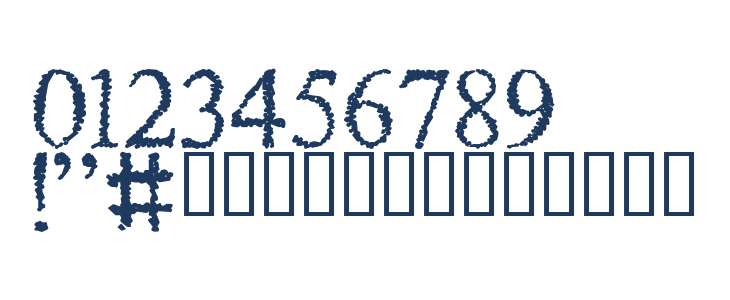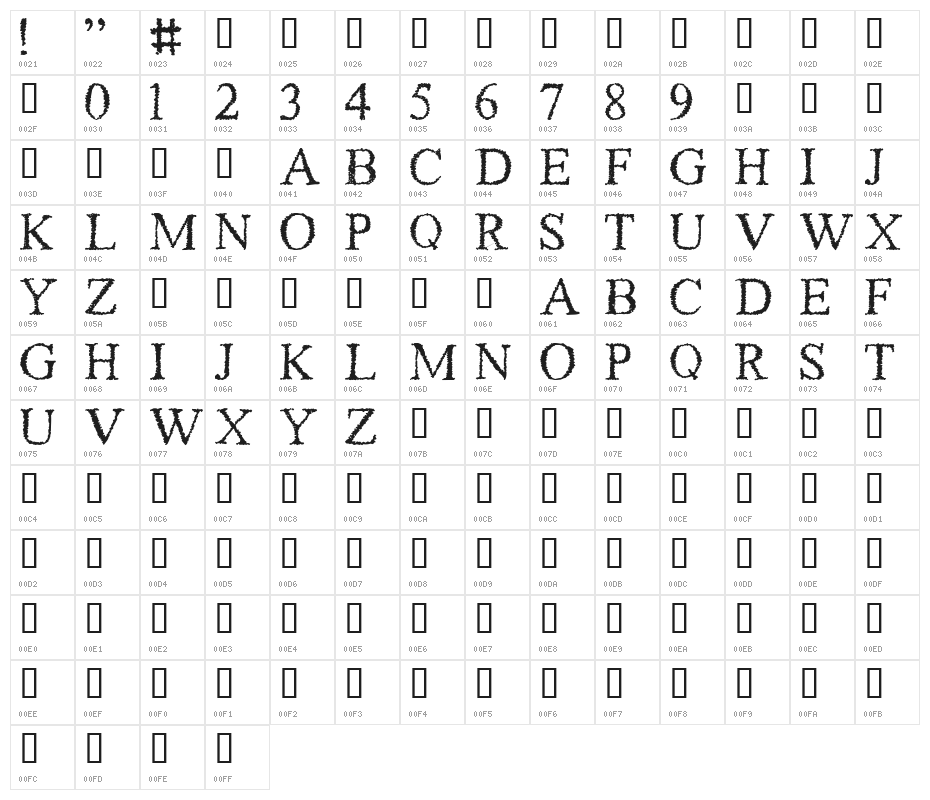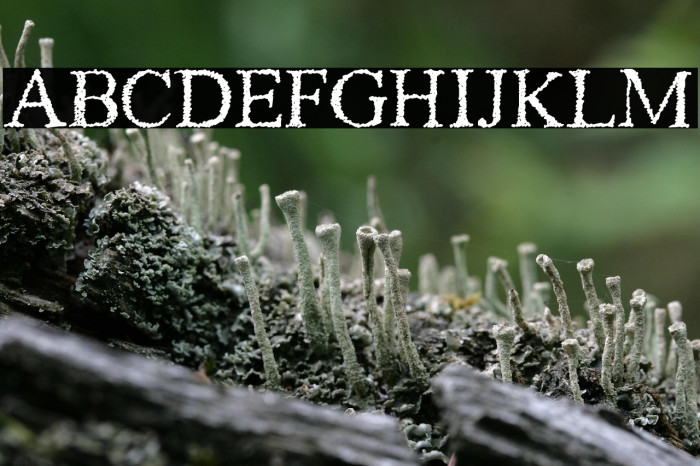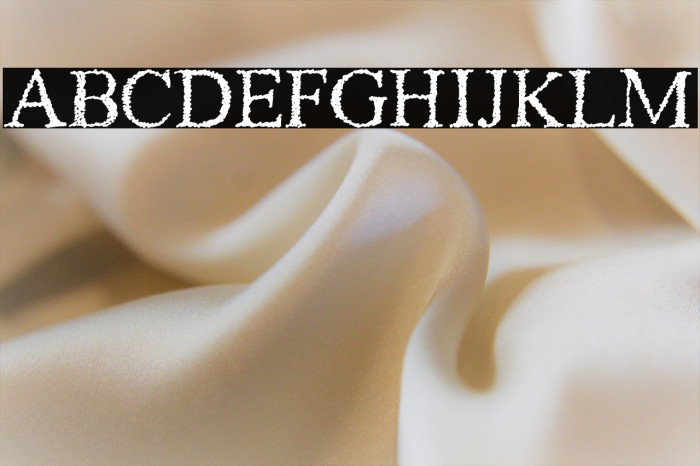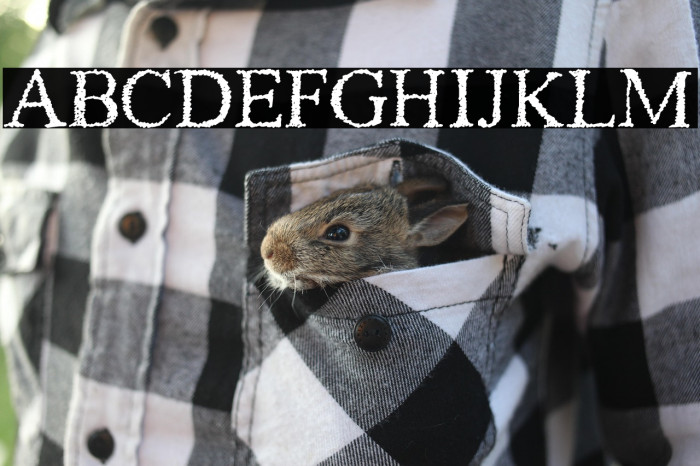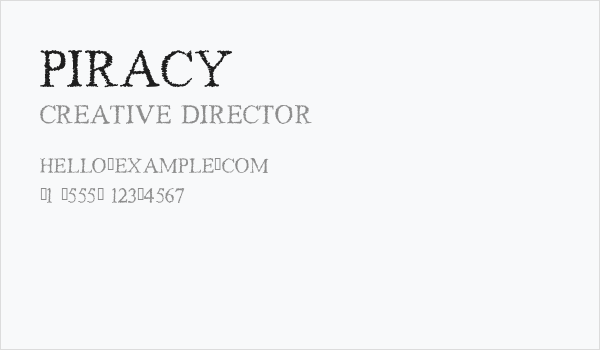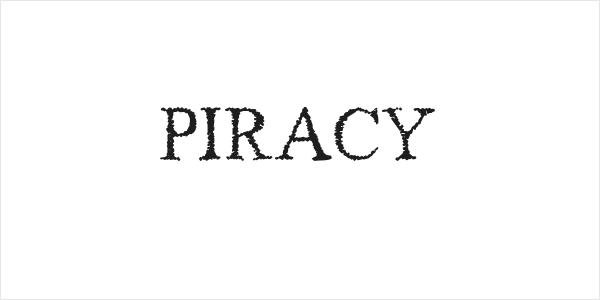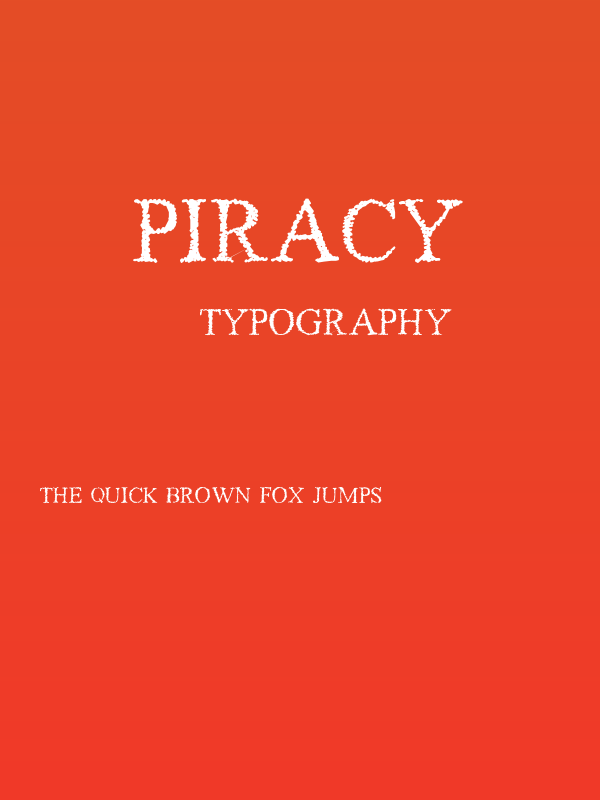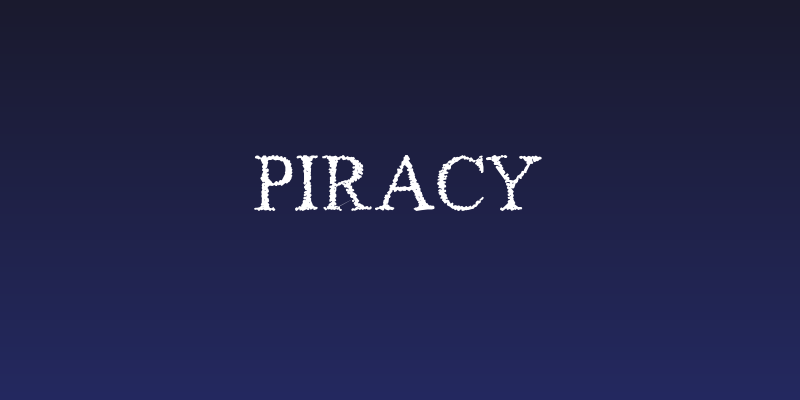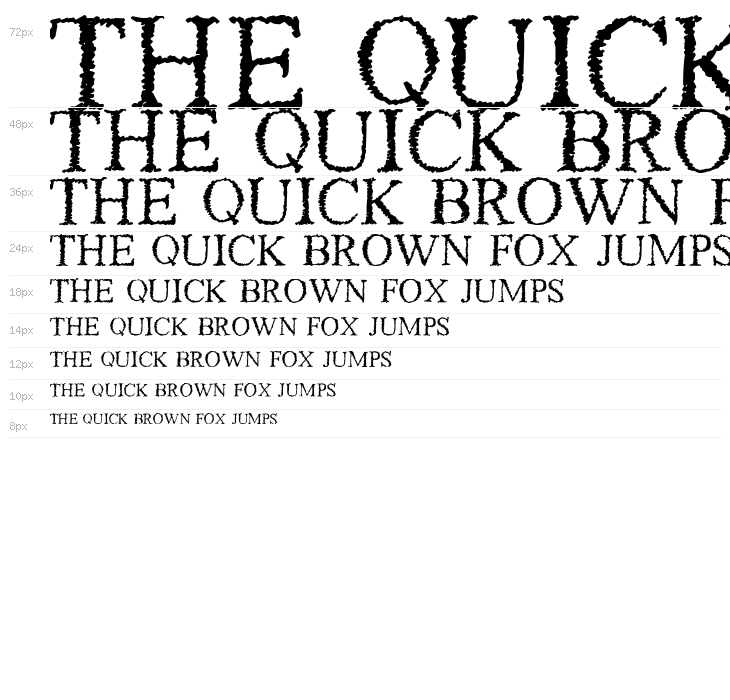
Piracy Font
Piracy Description
This font features a rugged, distressed appearance with rough edges and a textured look, reminiscent of vintage pirate maps or old manuscripts. The uppercase and lowercase letters maintain a consistent style, with each character exhibiting a unique, hand-drawn quality. The numerals and special characters follow the same aesthetic, adding to the overall cohesive design. The font's irregularities give it a dynamic and adventurous feel, making it ideal for projects that require a touch of historical or nautical flair.